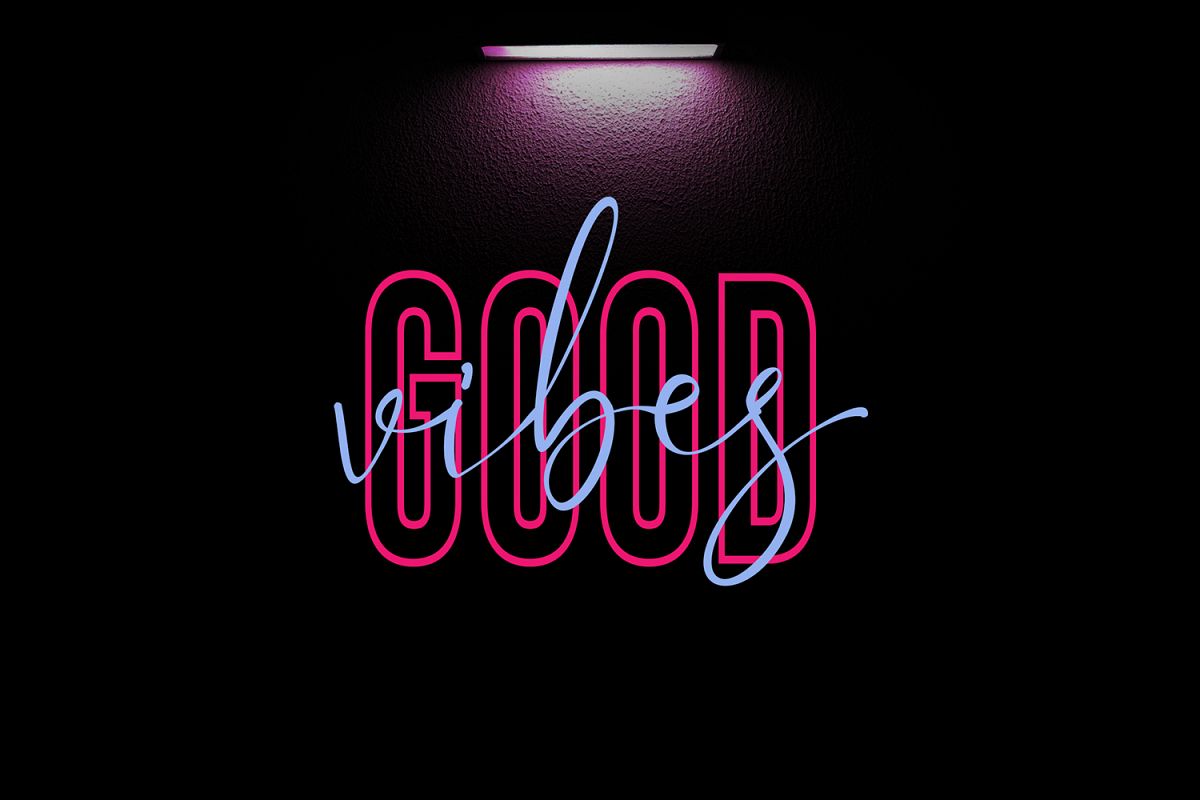
GOOD VIBES | 3 FONT GOOD VIBES
GOOD-Bold
GOODLINES-Regular
VIBES-Regular
3 FONT BUNDLE (Signature Font and Sans Font)Hand Lettering Signature font, Sans Bold and Sans Line. For your professional design projects; logos, branding, magazines, blog posts, social media, advertisements & product designs.